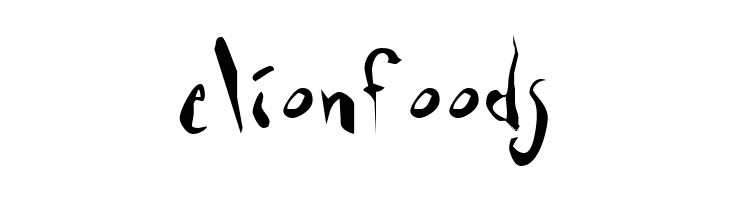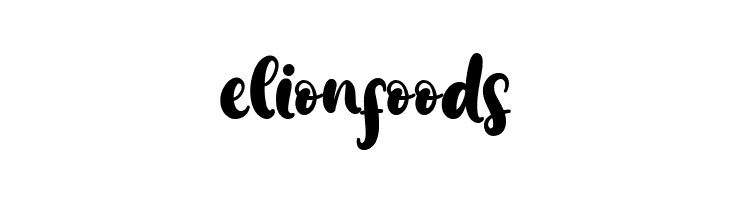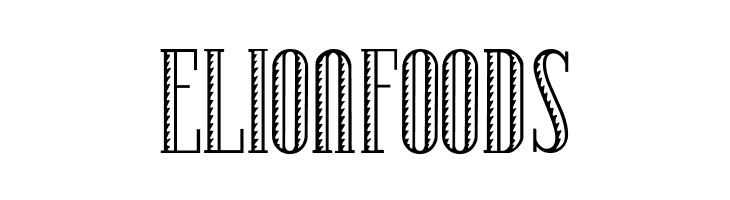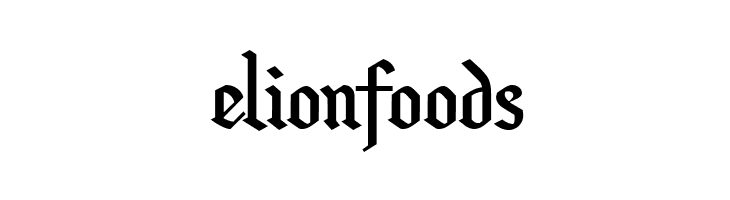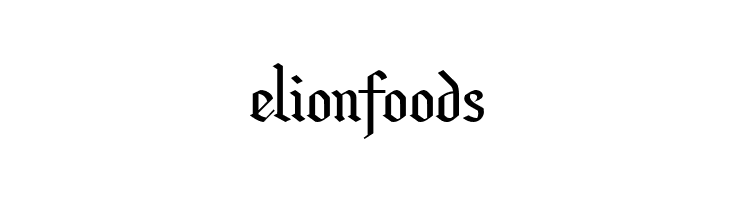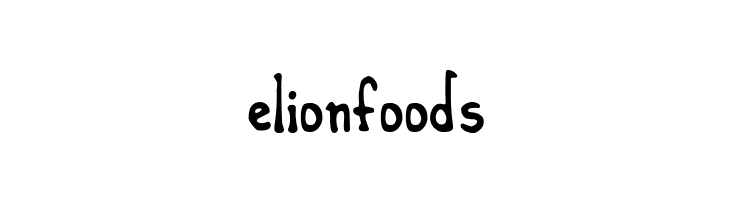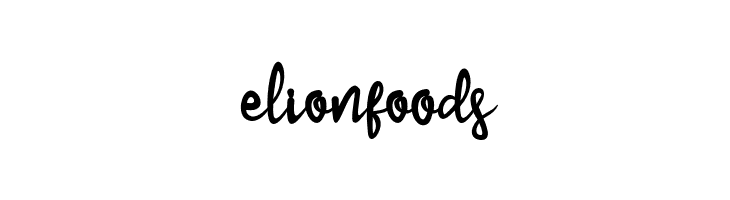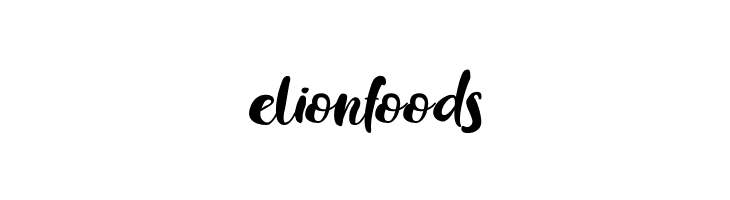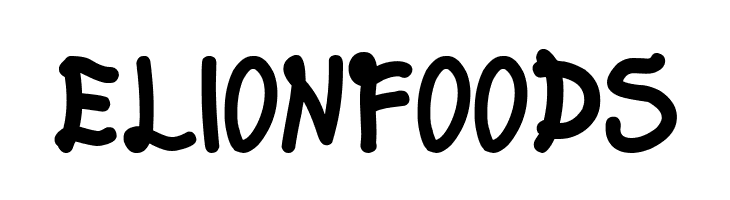
A decorative, hand-lettered font with tall, narrow characters and a striped pattern.
An ornate, decorative font with a festive, gothic style.
A playful, hand-drawn font with quirky, uneven strokes.
A lively and expressive brush script font with dynamic strokes and a hand-lettered feel.
A bold, playful script font with a hand-lettered calligraphy style.
A playful, bold, and rounded font with a hand-drawn, cartoonish style.
A bold, playful script font with a hand-lettered feel.
A bold, dynamic script font with fluid, connected letterforms and a hand-lettered calligraphy style.
A bold, flowing script font with a dynamic, hand-lettered style.
Bold, playful script with hand-lettered, calligraphic flair.
A lively, brush-script font with a hand-lettered, dynamic style.
Bold, playful script with hand-lettered brush style.
Bold, decorative script with festive, hand-lettered style.
Bold, hand-lettered script with playful, festive character.
A whimsical, hand-lettered script font with decorative swashes.
A bold, festive script font with playful, hand-lettered strokes.
Modern, playful script with hand-lettered, festive style.
Bold, hand-lettered script with a festive, playful style.
Bold, hand-lettered script with casual, flowing strokes.
A whimsical, hand-lettered script with decorative swashes.
A bold, brush-script font with a festive, hand-drawn look.
Bold, brush-style script font with lively, hand-drawn strokes.
A decorative, high-contrast script with whimsical, hand-drawn qualities.
Expressive, brush-script font with a festive, hand-lettered look.
Bold, brush-style script with festive, hand-drawn character.
A bold, high-contrast serif font with dramatic and elegant features.
A playful and elegant script font with flowing, interconnected letters.
A lively and elegant script font with smooth, flowing curves.
A bold, expressive script font with flowing, cursive letterforms.
A playful, festive script font with elegant loops and swirls.